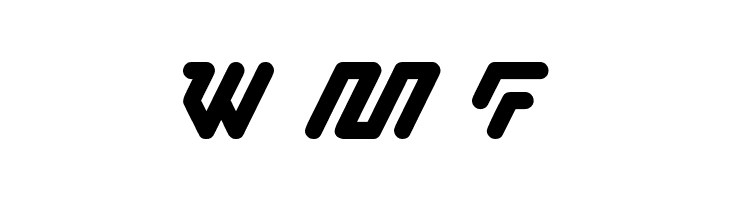
A playful, hand-drawn outlined font with a whimsical and creative style.
A decorative set of intricate, kaleidoscope-inspired geometric symbols.
Ornamental geometric display font with kaleidoscopic motifs.
Intricate, kaleidoscope-like symbols with geometric patterns.
A decorative collection of geometric and abstract symbols with a kaleidoscopic effect.
A bold, decorative font with a three-dimensional outline effect and geometric shapes.
A hand-drawn, artistic font with irregular strokes and a unique, expressive style.
A casual handwritten font with fluid, slightly irregular characters.
A vintage serif font with bold, sharp serifs and elegant curves.
A bold, classic serif font with strong strokes and elegant serifs.
A classic serif font with elegant, well-defined characters and moderate contrast.
A bold, classic serif font with strong, authoritative characters.
A playful, hand-drawn font with bold, irregular strokes and a casual feel.
A bold, geometric font with sharp angles and a modern aesthetic.
A bold, geometric font with sharp angles and a striking appearance.
A bold, geometric font with a futuristic and digital aesthetic.
A playful, handwritten font with uneven strokes and a casual, friendly style.
A playful, handwritten font with dynamic and irregular strokes.
A casual, handwritten font with a playful and informal style.
A playful, bold font with rounded, slightly slanted characters.
A dingbat font of hand-drawn children's drawings and playful scenes.
A playful, hand-drawn font featuring whimsical stick figures and doodles.
A whimsical, cartoon-like font with playful, exaggerated characters.